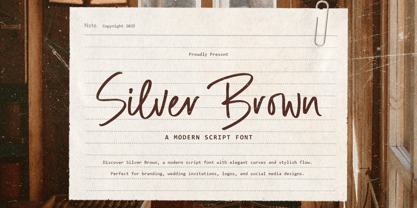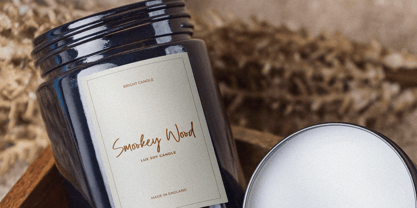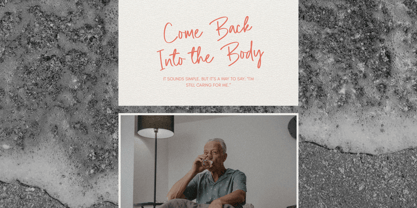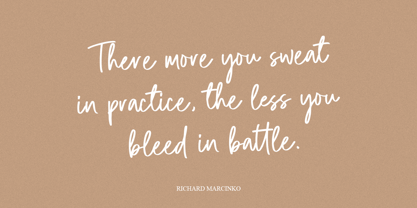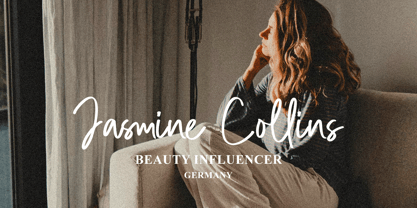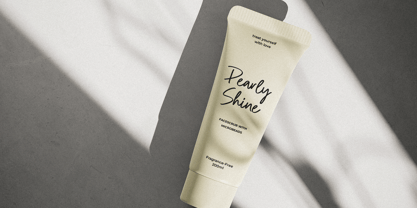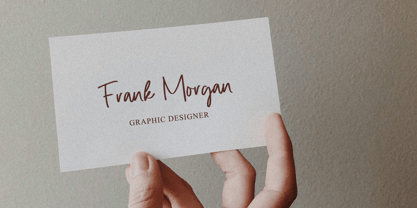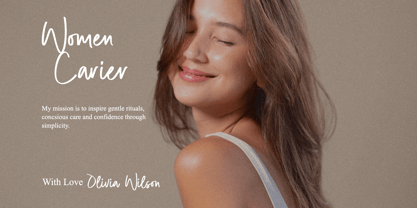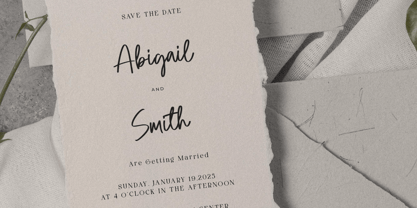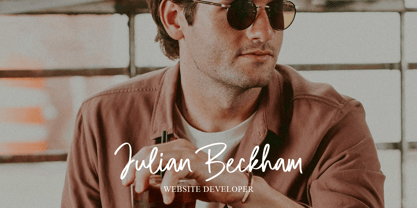
Silver Brown
The Silver Brown Font Family was designed by Nofi Sofyan Hadi and published by Heinzel Std. Silver Brown contains 1 styles. More about this family
Silver Brown is a modern script font that blends elegance with a warm, handwritten charm. Featuring smooth curves, natural strokes, and stylish flow, this font delivers a refined yet friendly feel. Its graceful letterforms make Silver Brown perfect for branding projects, wedding invitations, logos, packaging, quotes, and social media designs. Designed to feel personal and expressive, Silver Brown adds a timeless and sophisticated touch to any creative work while remaining easy to read and visually appealing.